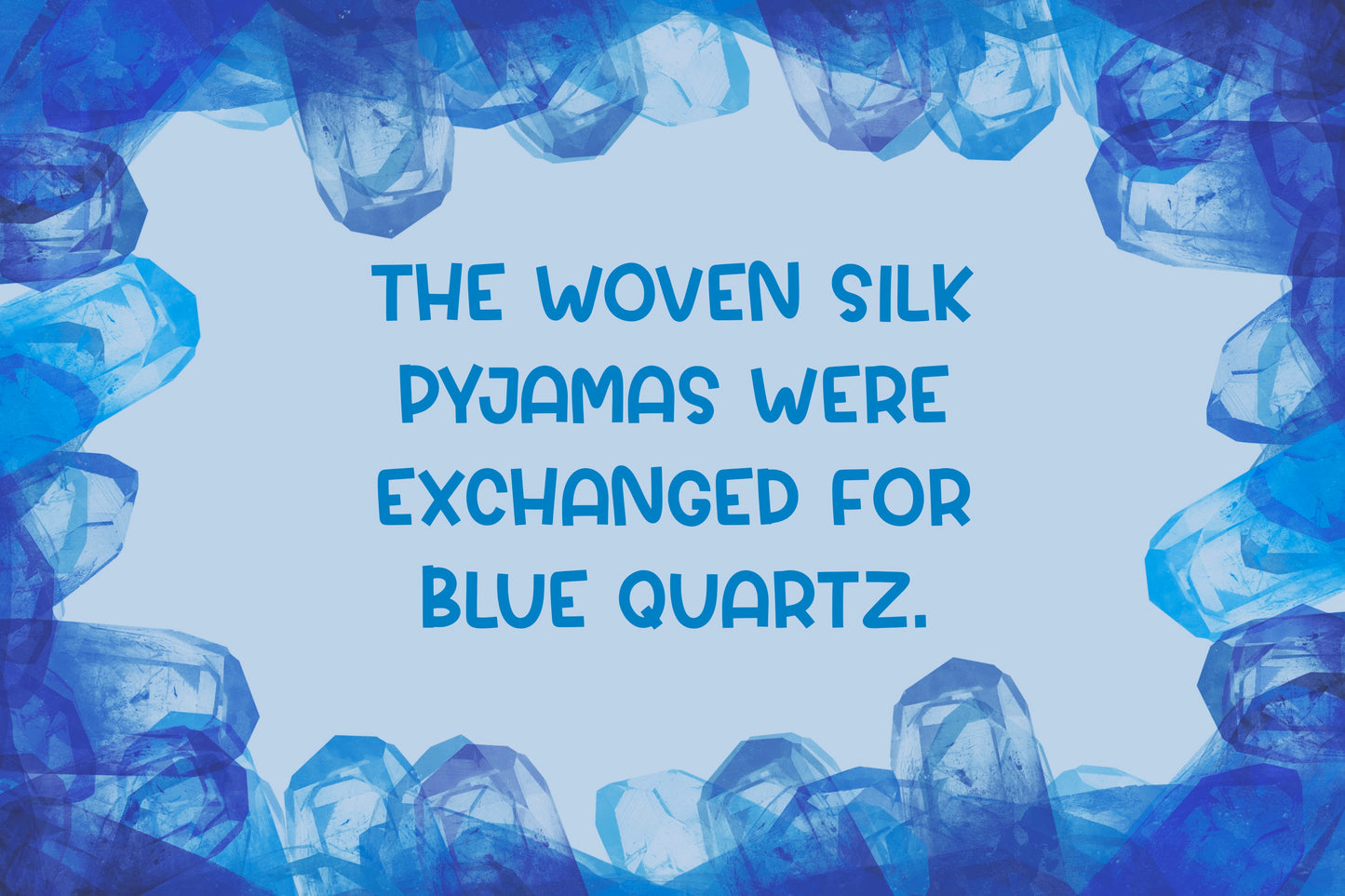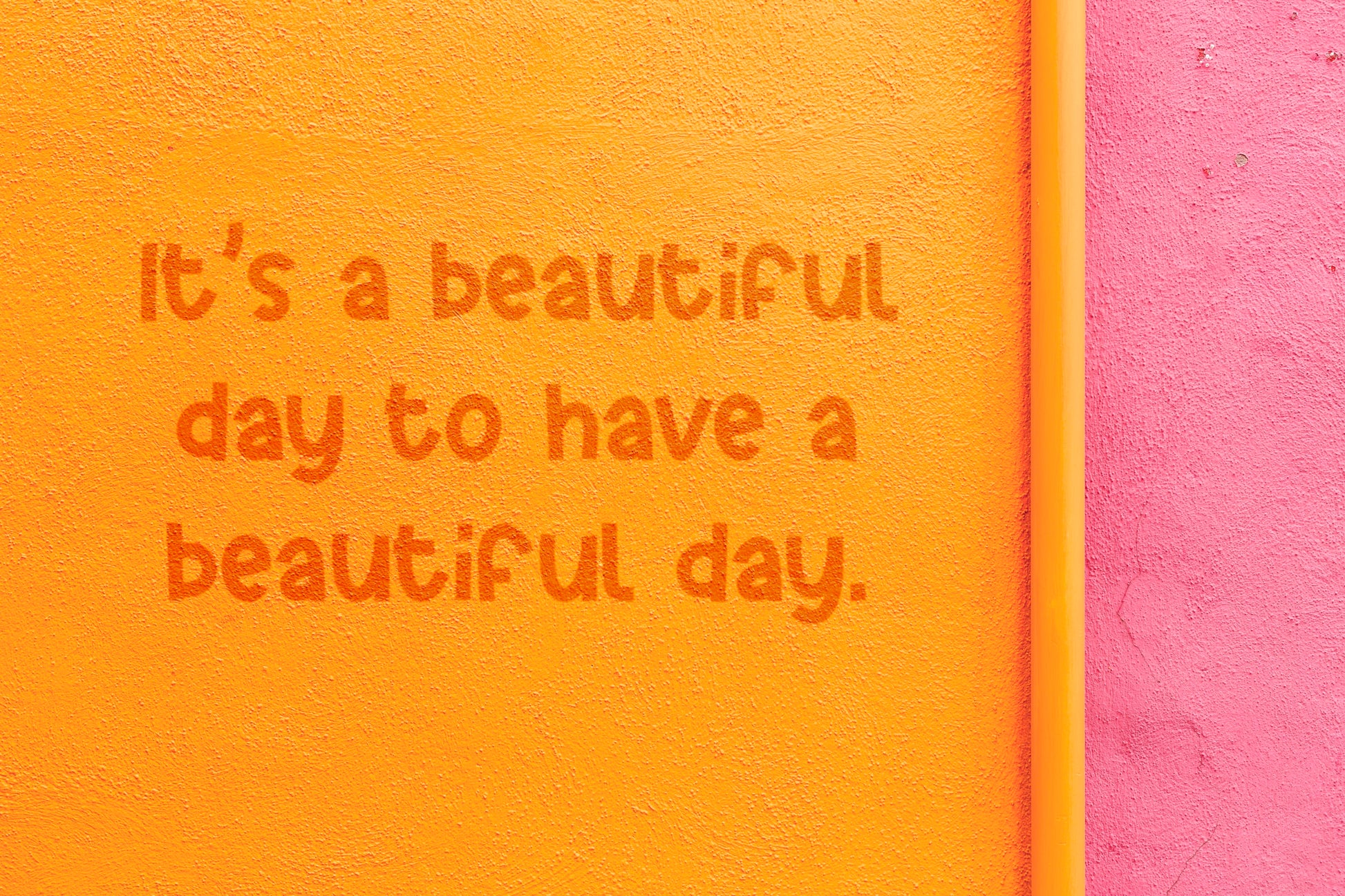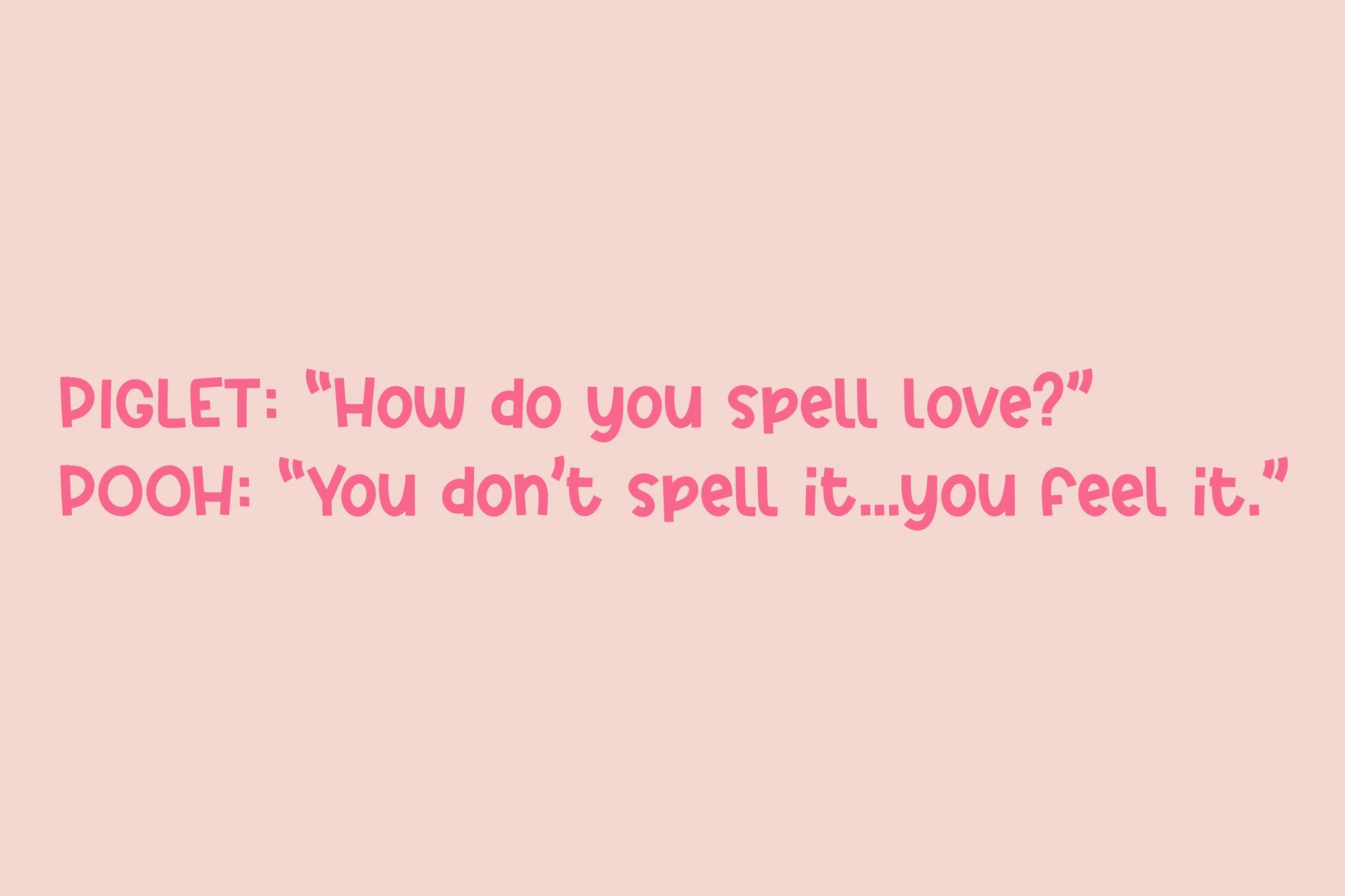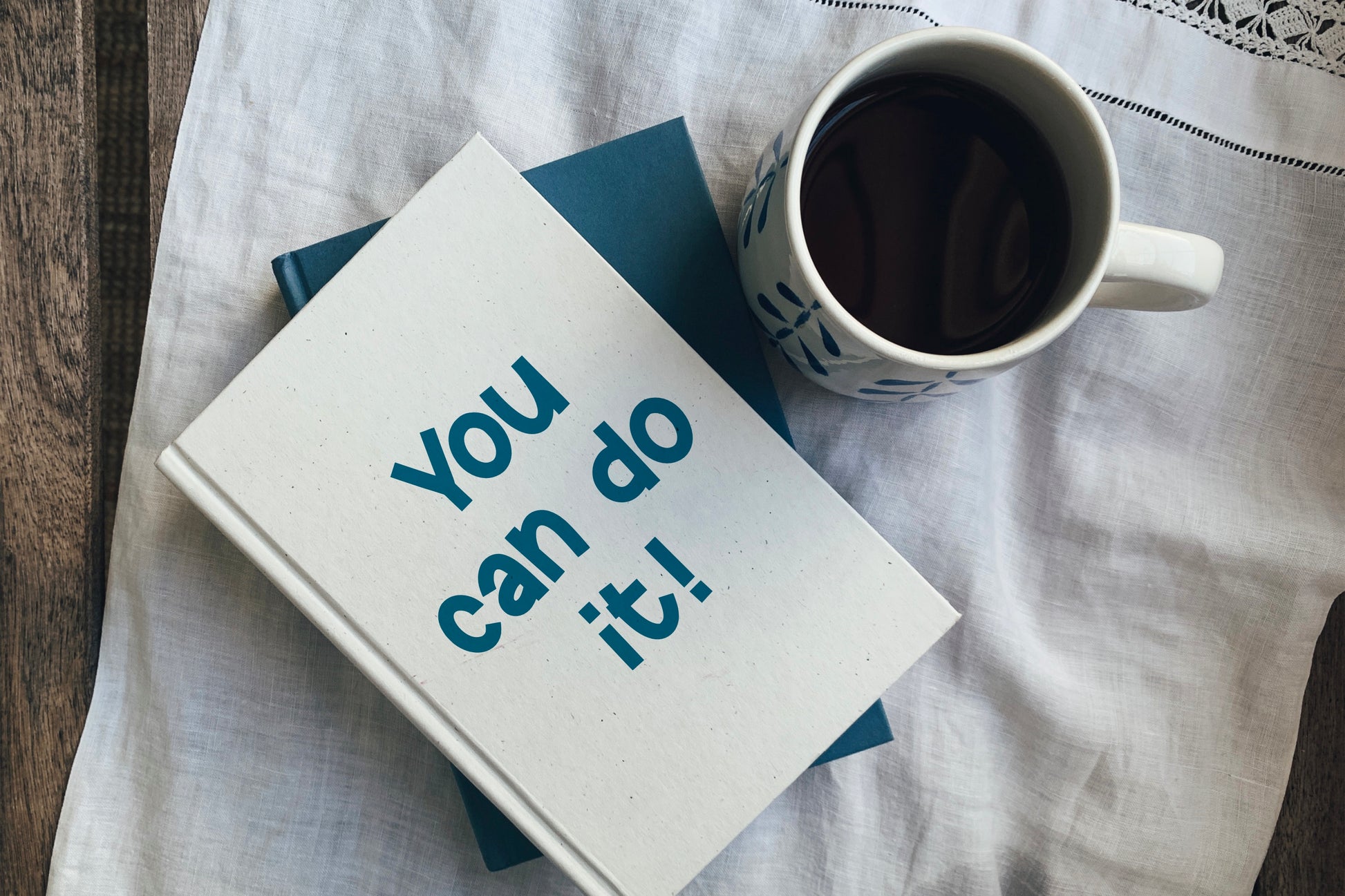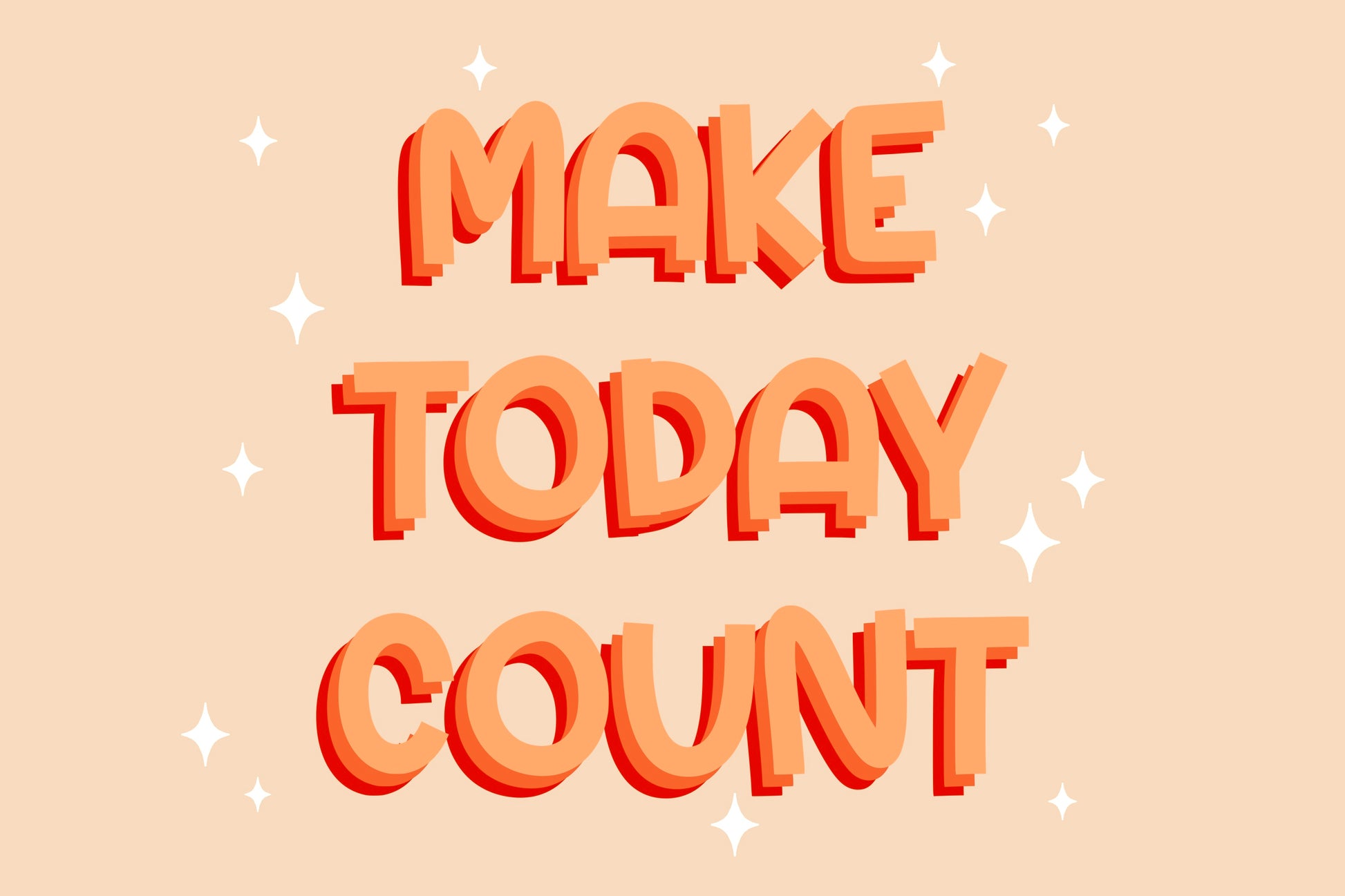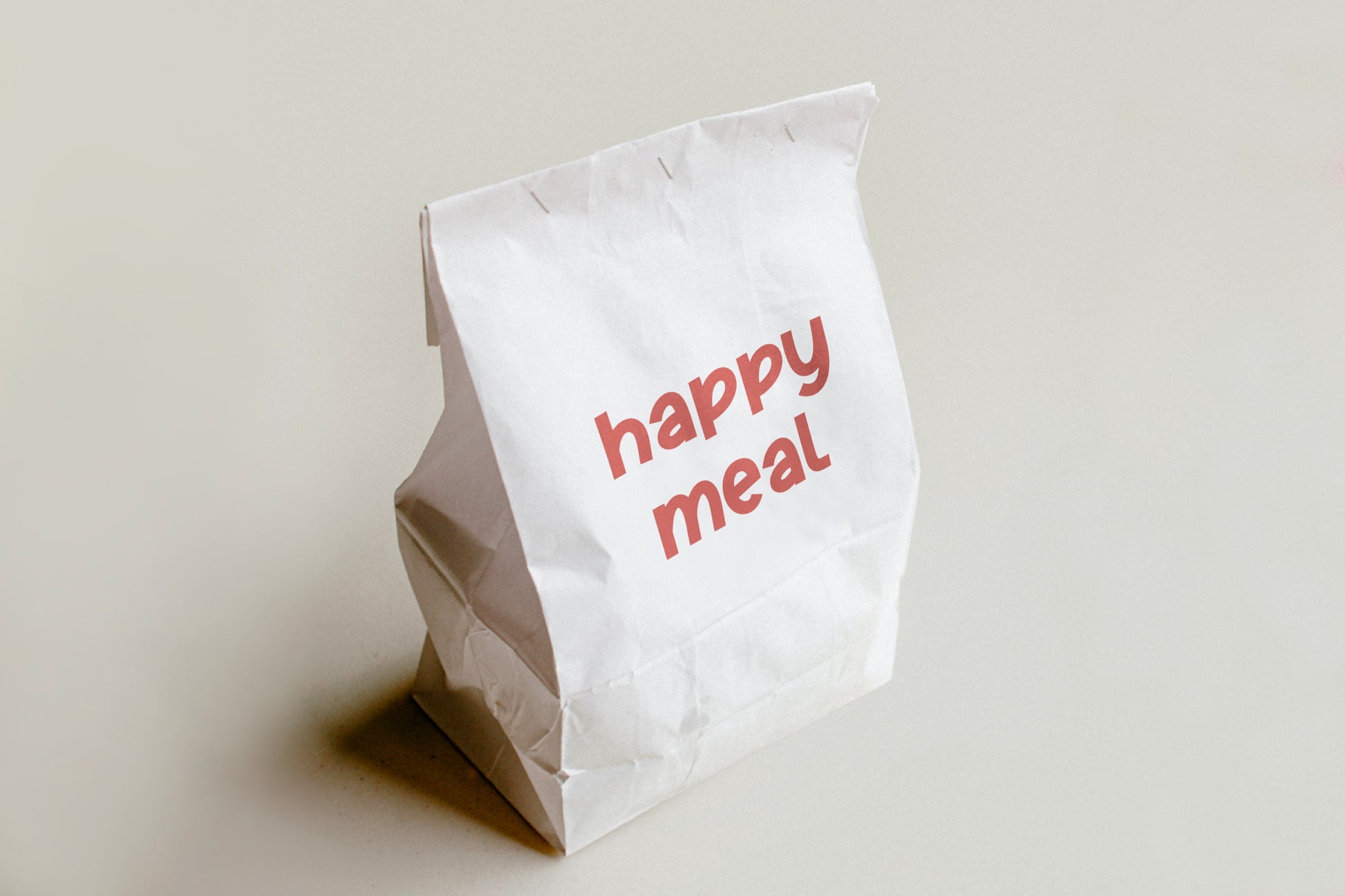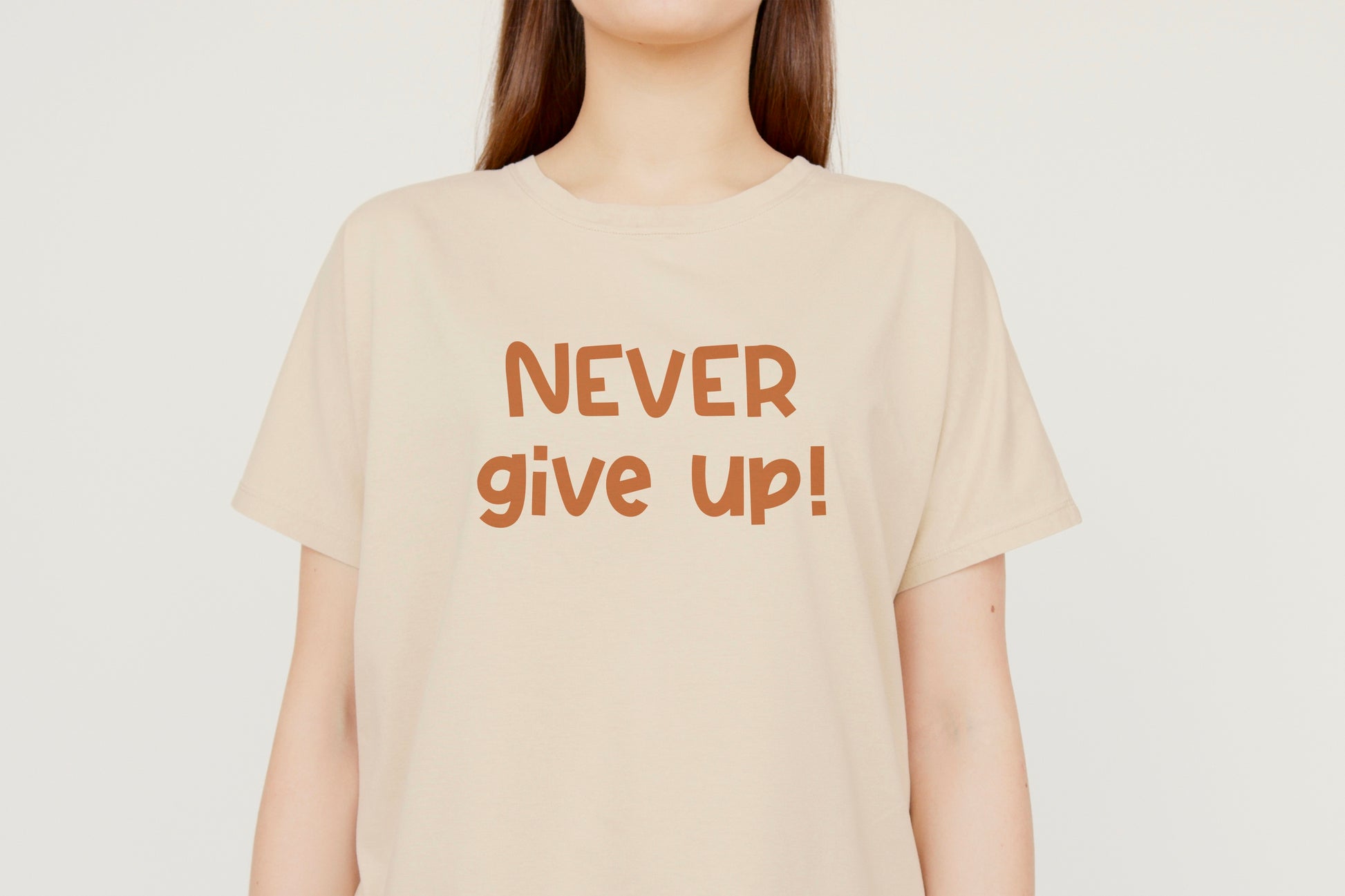
Clementine Handwritten Font
This is my Clementine handwritten/hand drawn font. This bold, squared monoline font will add a fun, quirky, handmade flare to your design! It is perfect for crafters, stickers, posters, t-shirts, etc.